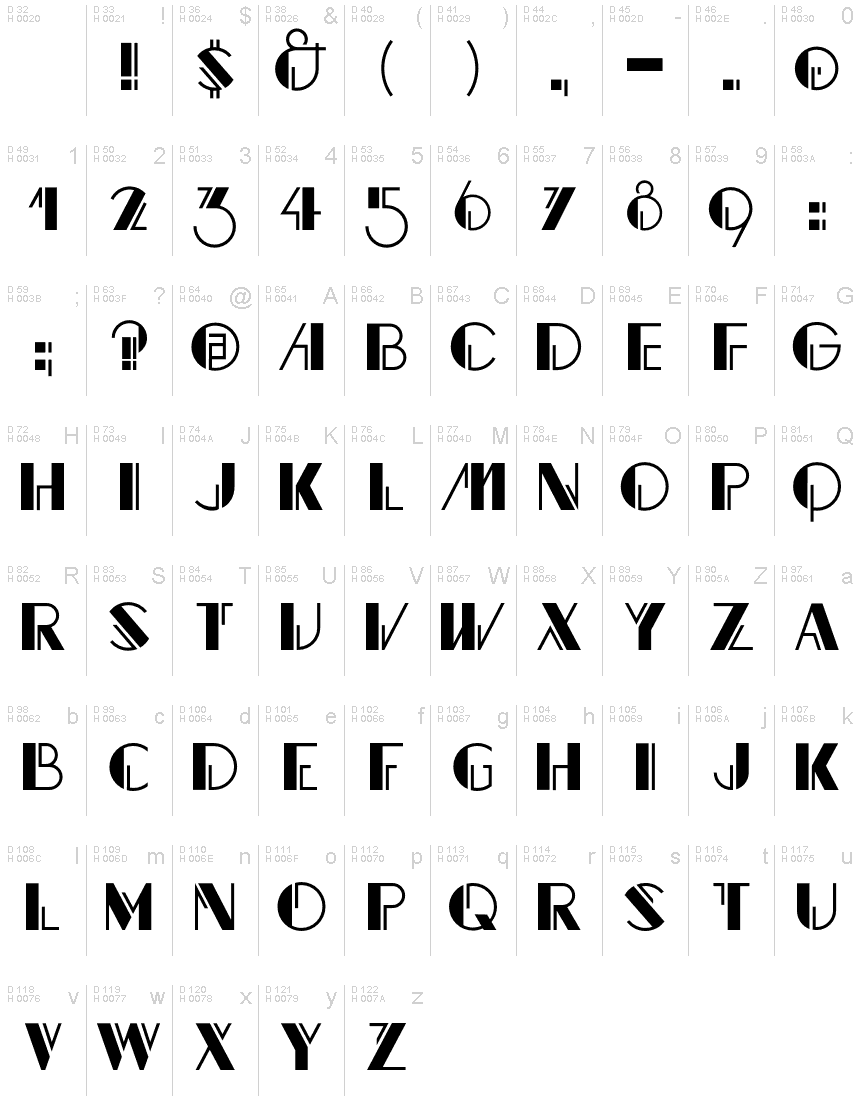
Rocodecoco-Plain
I completely re-drew from old auto traced documents. I wanted to create a clean digital version that would present well at very large point sizes for posters or headlines. I used a mixture of the original Grock (1935) and Roco (1973) combined to give a full alphabet with many alternatives.
Original from a design by Letraset.
Rocodecoco
Digitised by SleepyGecko